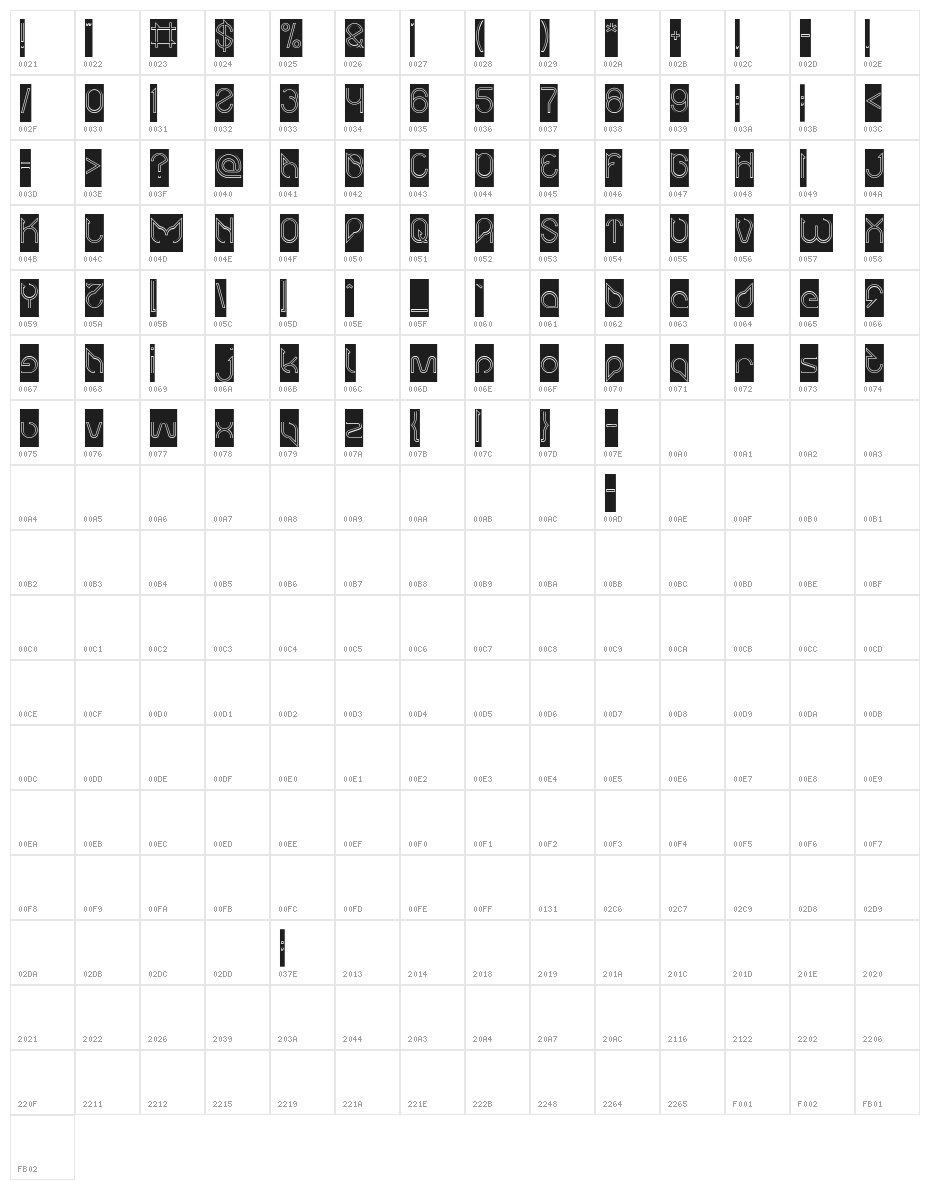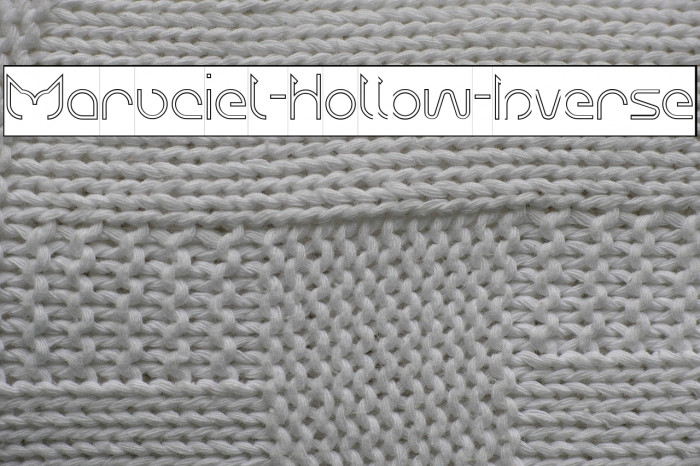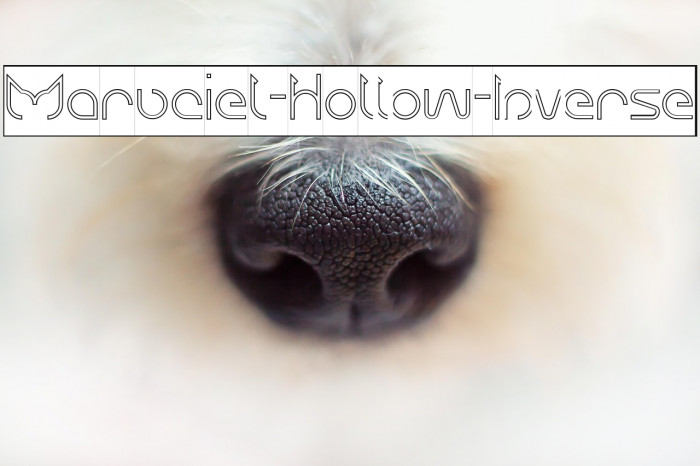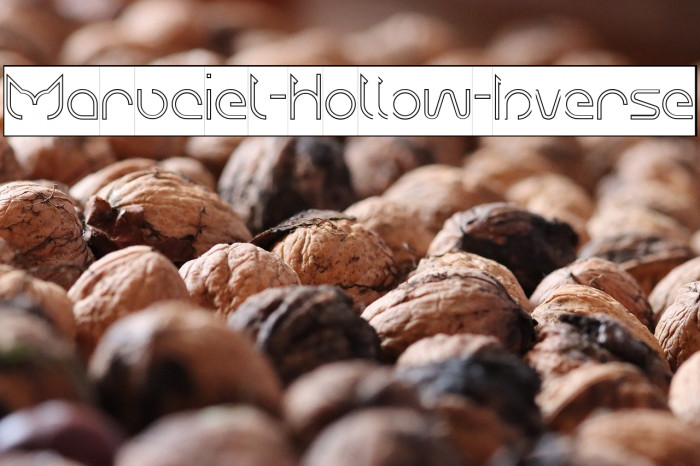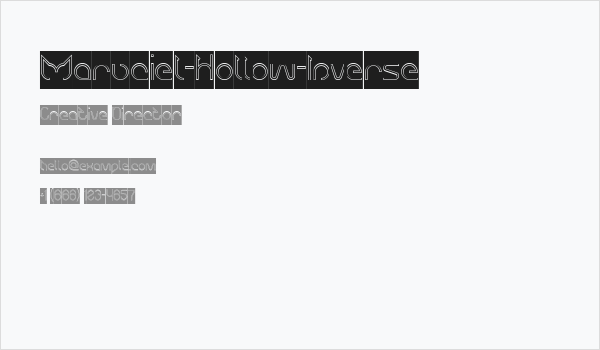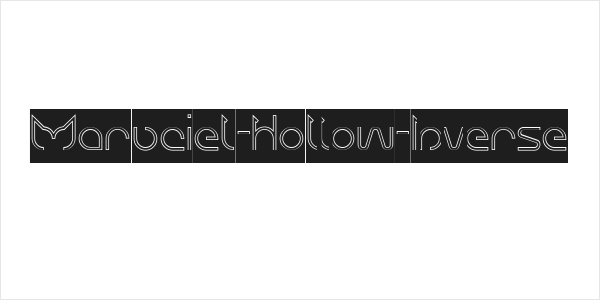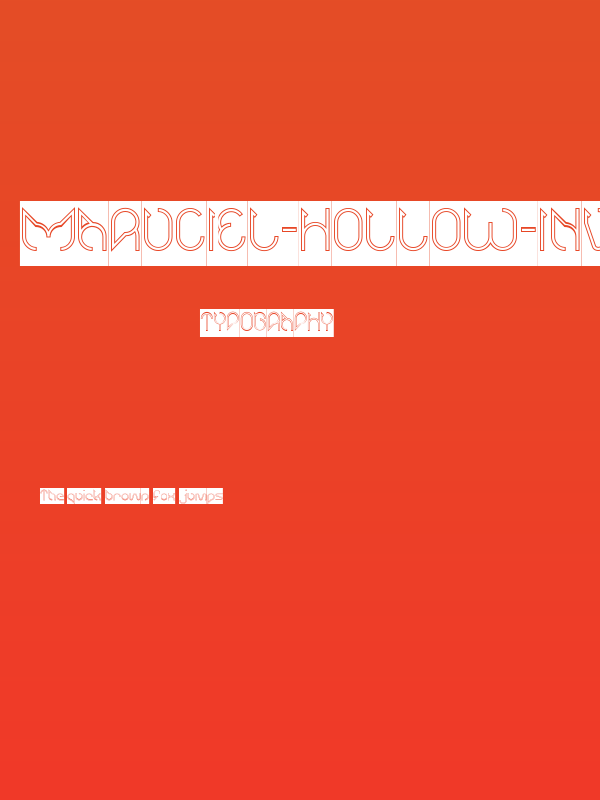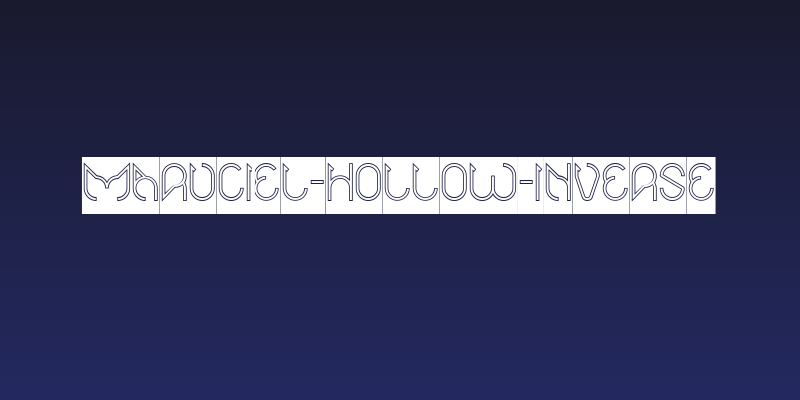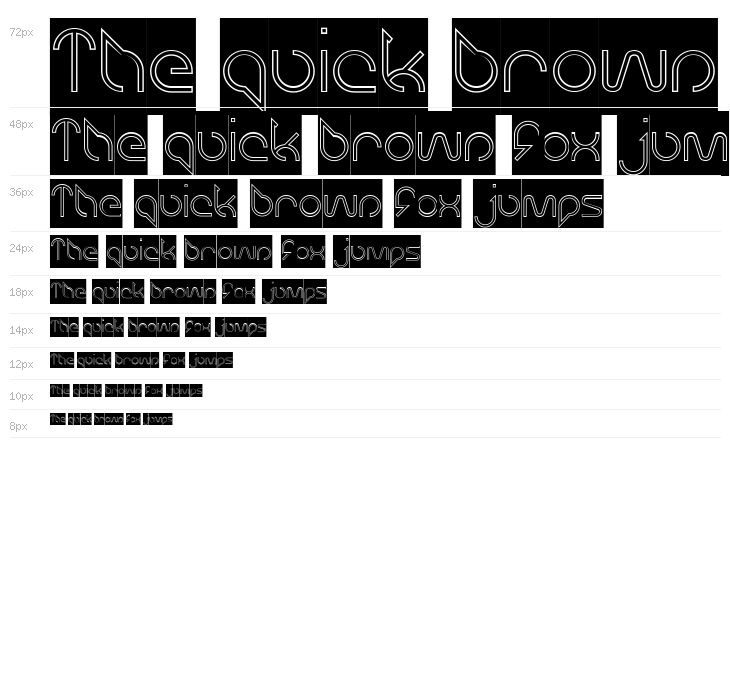
Maruciel-Hollow-Inverse Font
Maruciel-Hollow-Inverse Description
This font features a unique hollow design with an inverse style, where the interior of each character is transparent, creating a striking outline effect. The characters are bold and geometric, with sharp angles and clean lines that give it a futuristic and modern appearance. The uppercase and lowercase letters maintain a consistent style, with the lowercase letters mirroring the uppercase in form but with a slightly reduced size. Numbers and special characters are designed to match the overall aesthetic, ensuring uniformity across all glyphs. The font's distinct style makes it ideal for creative and artistic projects, where a bold statement is desired.